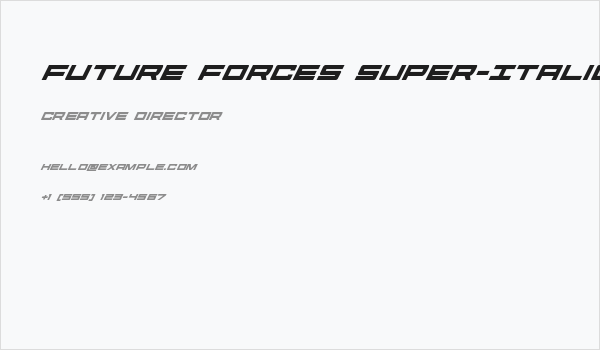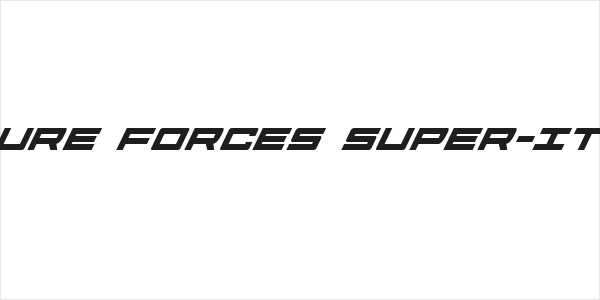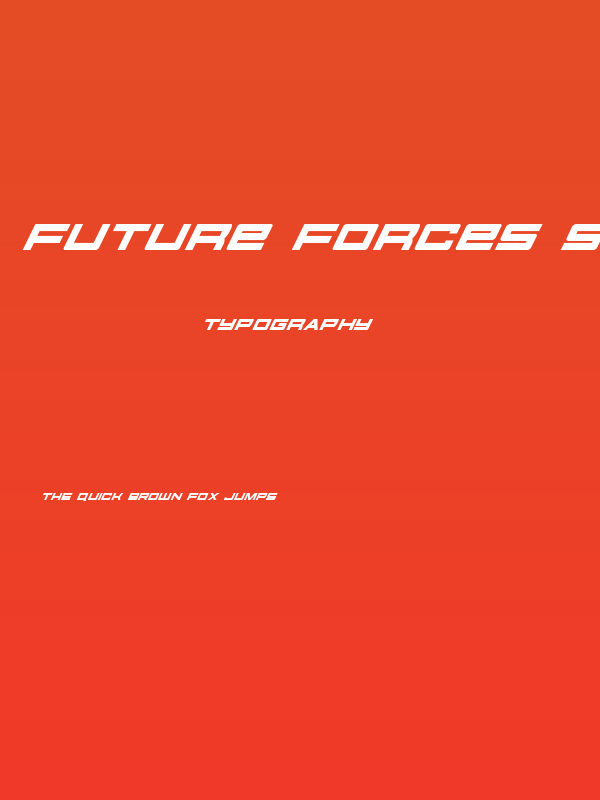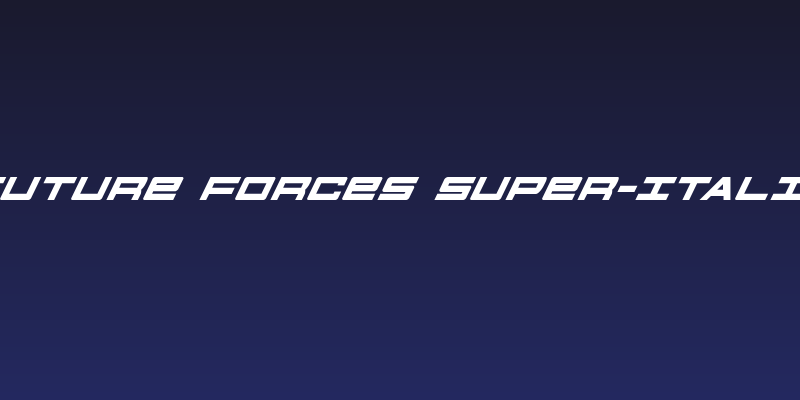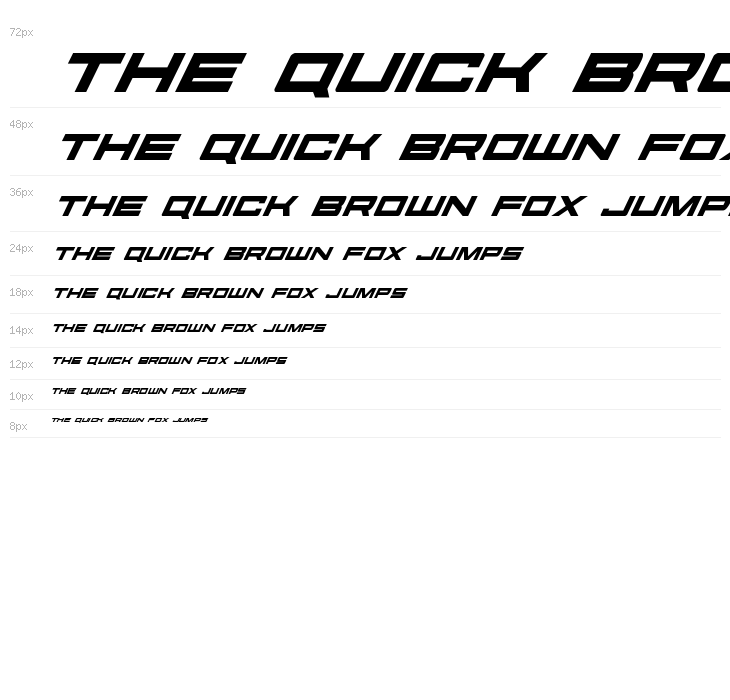
Future Forces Super-Italic Font
Future Forces Super-Italic Description
This font features a futuristic and dynamic style with a strong italic slant, giving it a sense of motion and speed. The characters are bold and angular, with sharp edges and a geometric structure that conveys a modern and high-tech aesthetic. The uppercase and lowercase letters maintain a consistent style, with the numerals and special characters following the same design principles. The font's design is clean and precise, making it suitable for projects that require a contemporary and energetic look.
| Proposed Projects | Ideal for sci-fi themed designs, technology branding, video game titles, and futuristic posters. |